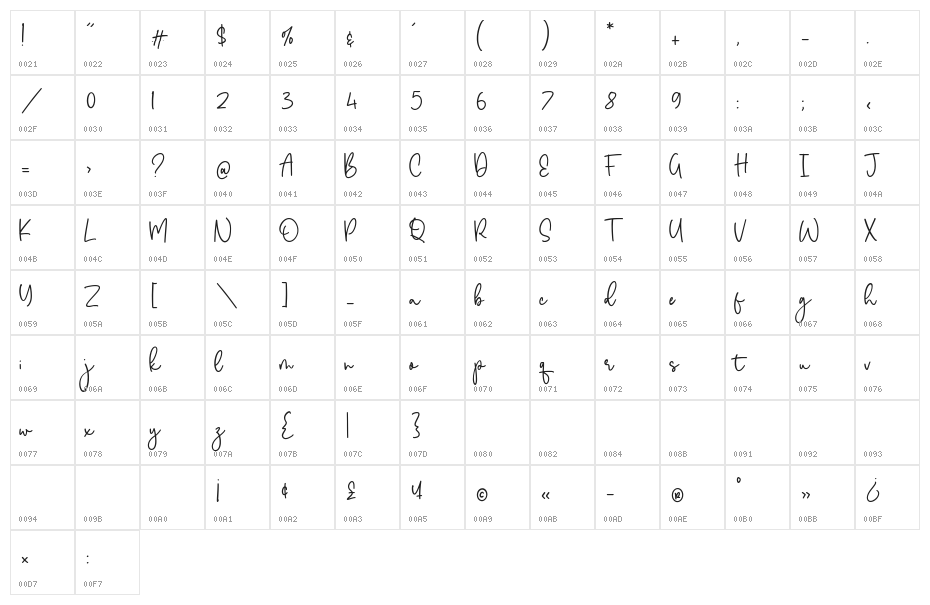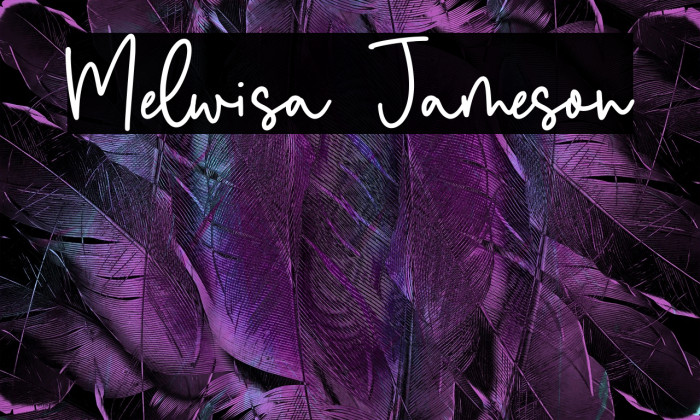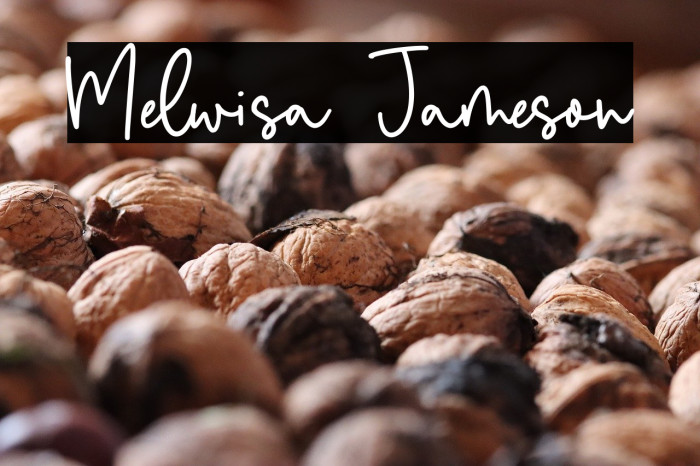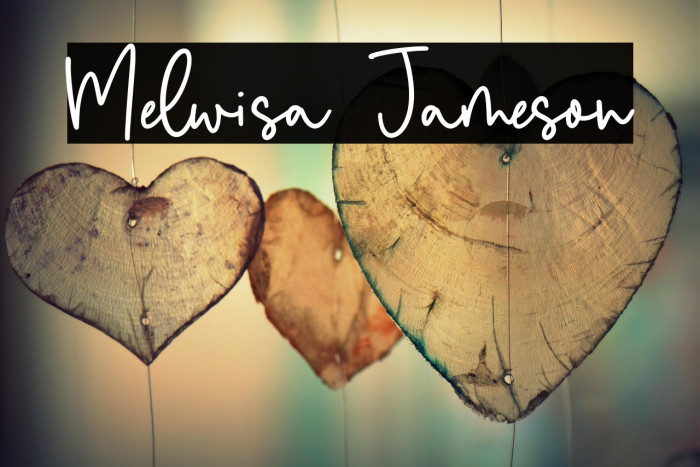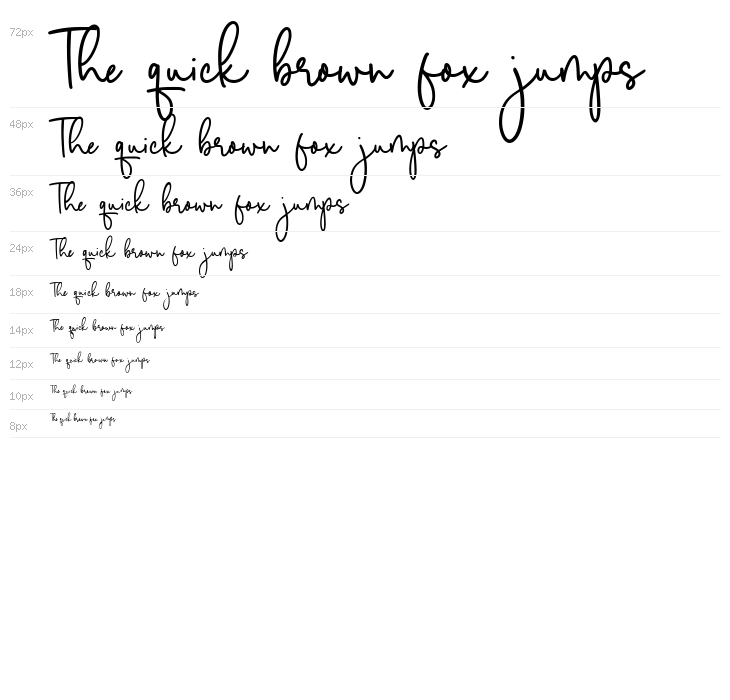
Melwisa Jameson Font
Melwisa Jameson Description
This font features a playful and casual handwritten style, characterized by its flowing, cursive lowercase letters and slightly more structured uppercase letters. The strokes are smooth and consistent, giving it a friendly and approachable appearance. The numbers and special characters maintain the same handwritten aesthetic, ensuring a cohesive look across all characters. This font is ideal for projects that require a personal touch, such as invitations, greeting cards, or social media graphics. Its informal style makes it perfect for conveying warmth and creativity.
| Proposed Projects | Ideal for invitations, greeting cards, social media graphics, and personal branding. |